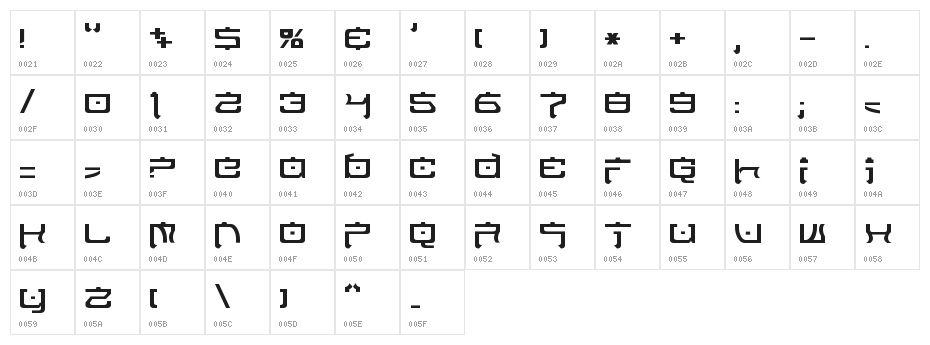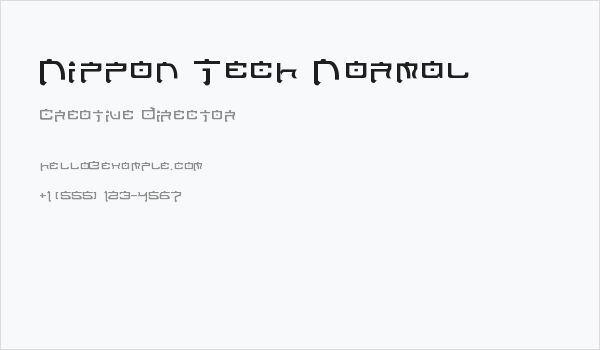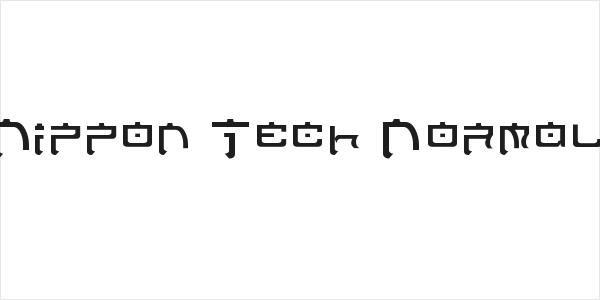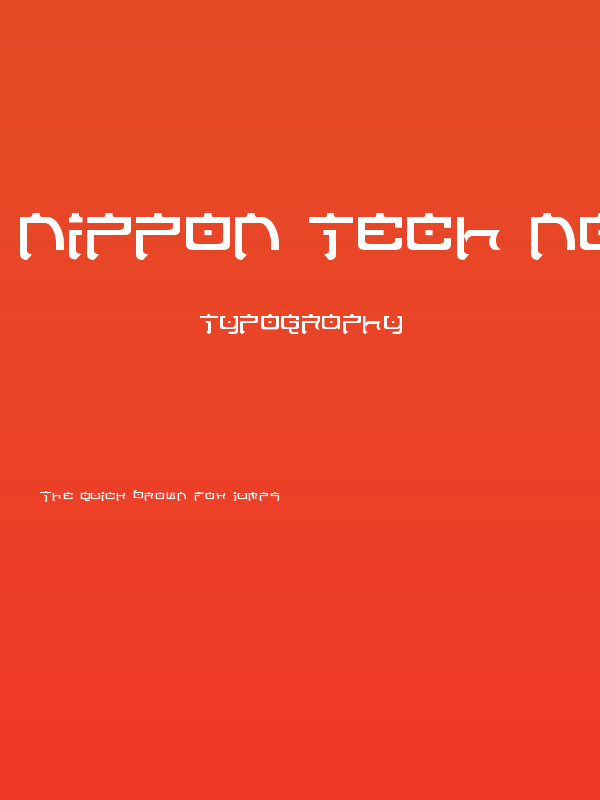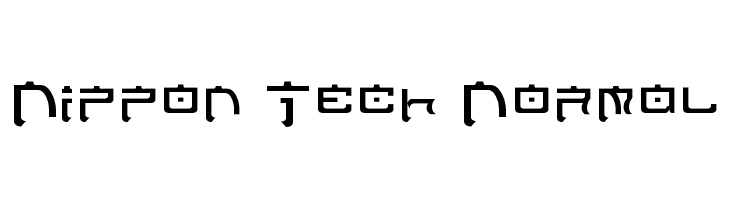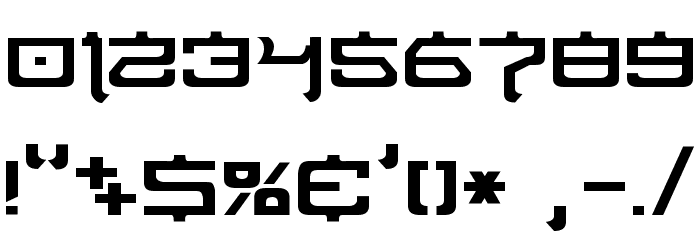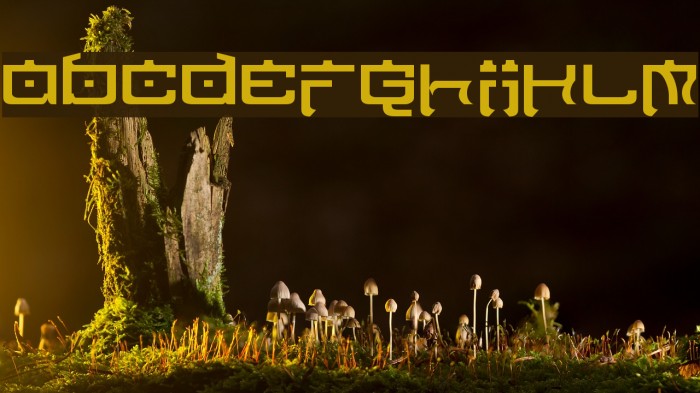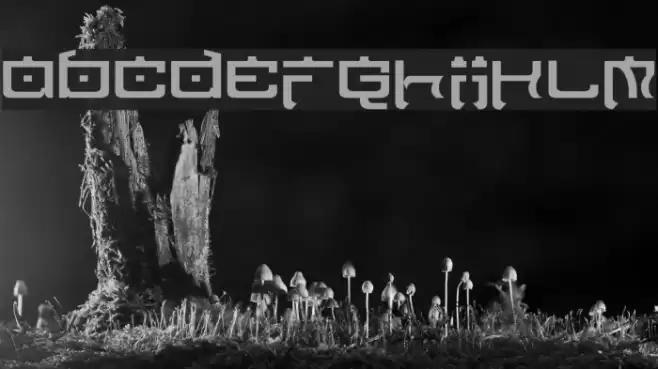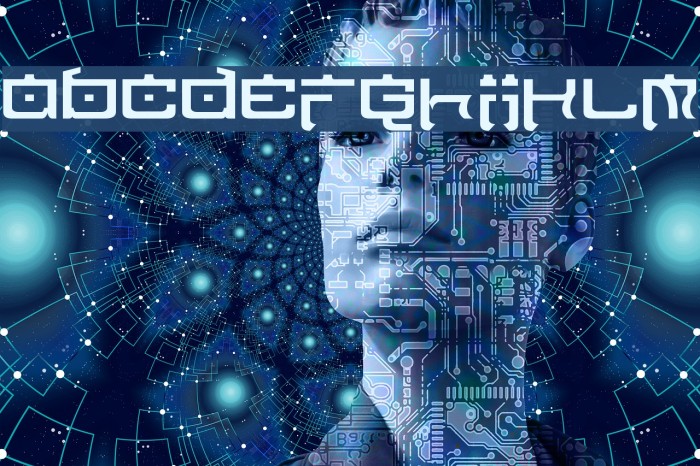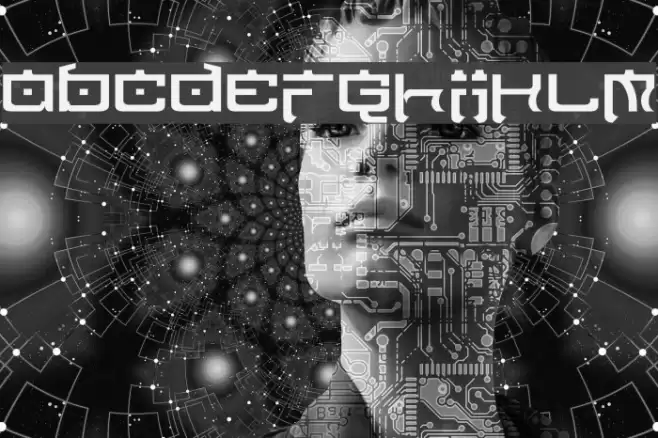
Nippon Tech Normal Font
Nippon Tech Normal Description
This font features a futuristic and tech-inspired design, characterized by its geometric and angular shapes. The characters have a distinct blocky appearance with sharp edges and minimal curves, giving it a digital and modern aesthetic. The uppercase and lowercase letters maintain a consistent style, with the uppercase being slightly more pronounced. Numbers and special characters follow the same design principles, ensuring uniformity across all glyphs. The font's unique style makes it stand out, suitable for projects that require a modern and technological feel.
| Use Case | Logos, Headlines, Digital interfaces |
| Proposed Projects | Ideal for technology branding, video game design, sci-fi movie posters, and digital interfaces. |